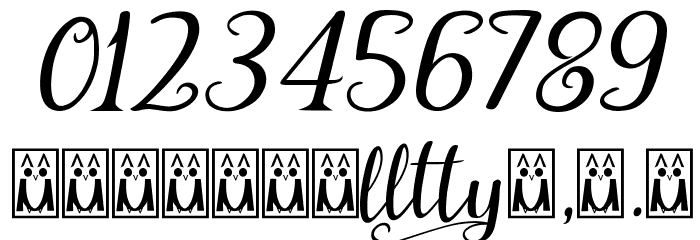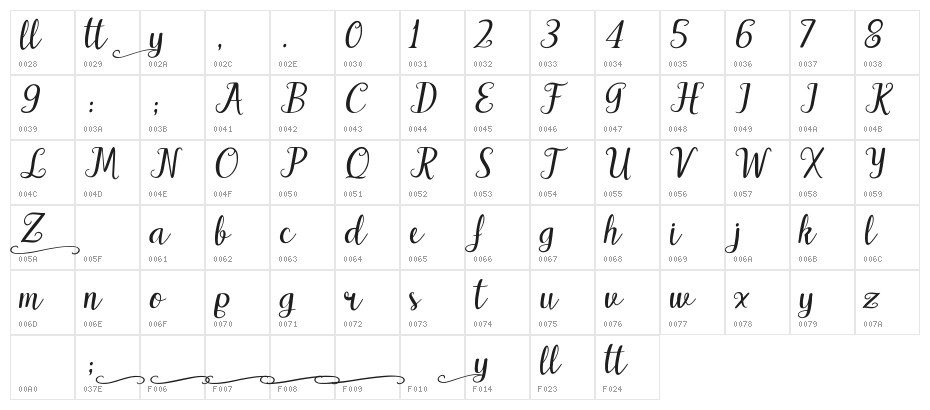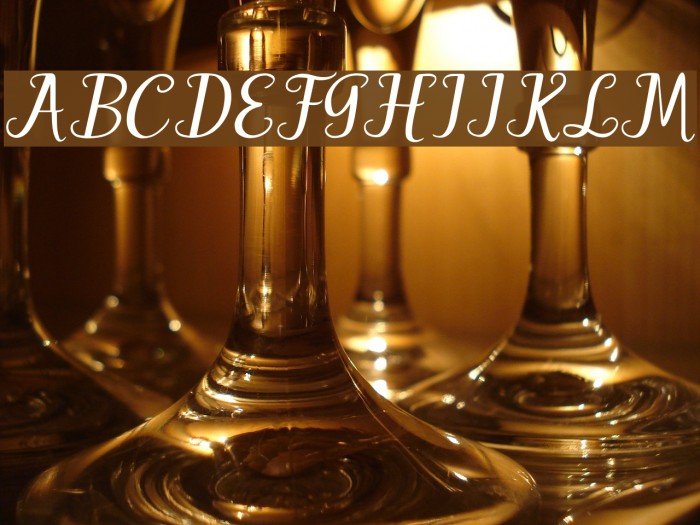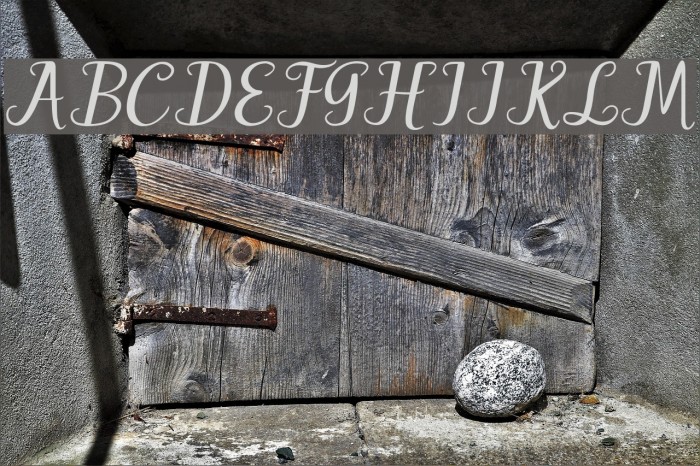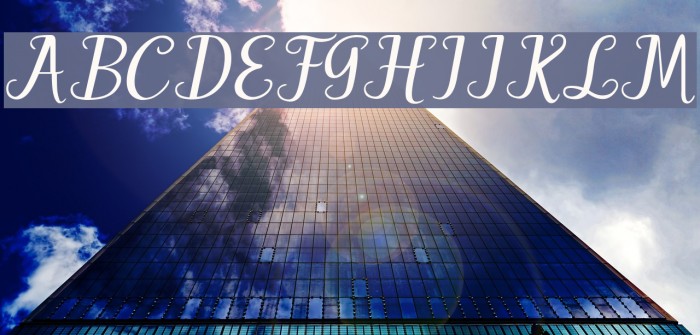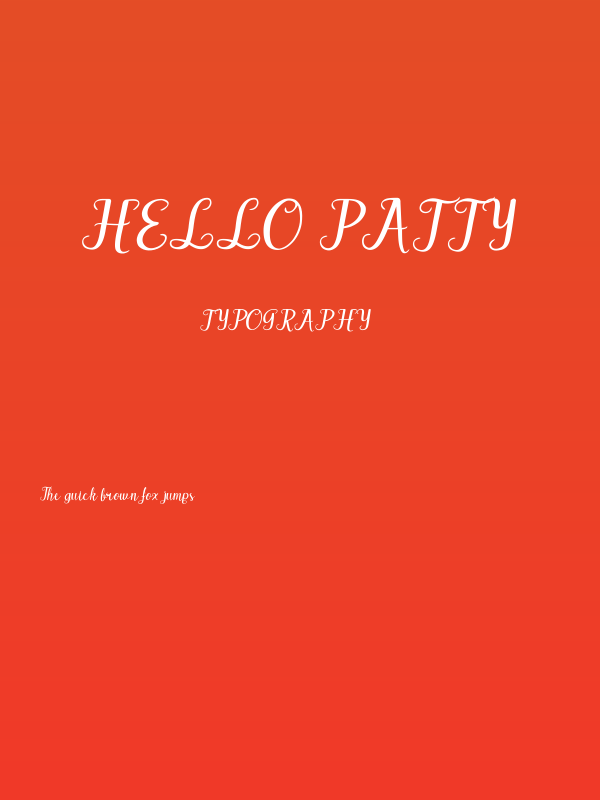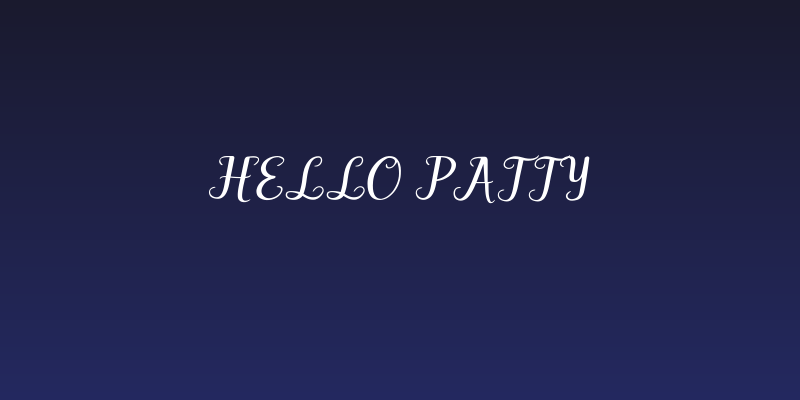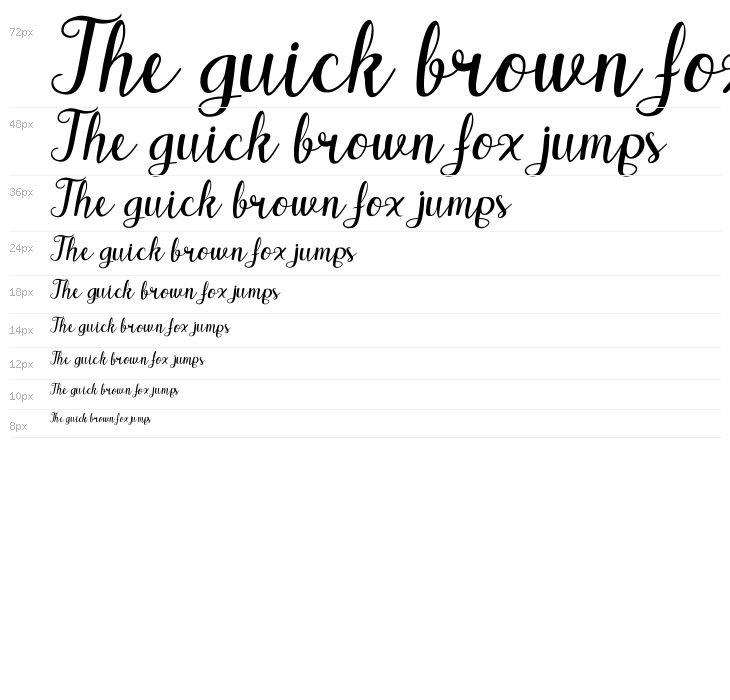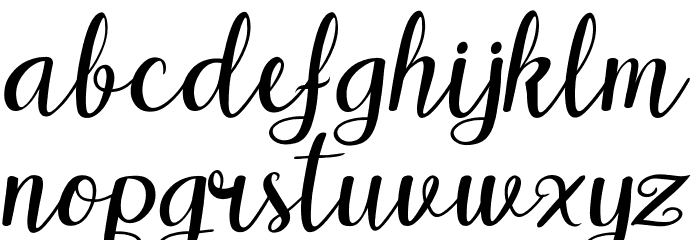
Hello Patty Font
Hello Patty Description
This elegant script font features a flowing, cursive style with smooth, connected strokes that create a sense of fluidity and grace. The uppercase letters are slightly more ornate, with subtle flourishes that add a touch of sophistication. The lowercase letters maintain a consistent rhythm, enhancing readability while preserving the decorative nature of the script. The numerals are well-integrated into the design, matching the overall aesthetic with their curvaceous forms. Special characters are thoughtfully designed, complementing the alphabet with their stylish appearance. This font exudes a sense of elegance and charm, making it suitable for a variety of creative applications.
| Use Case | Invitations, Branding, Packaging |
| Proposed Projects | Ideal for wedding invitations, greeting cards, branding, and elegant packaging design. |